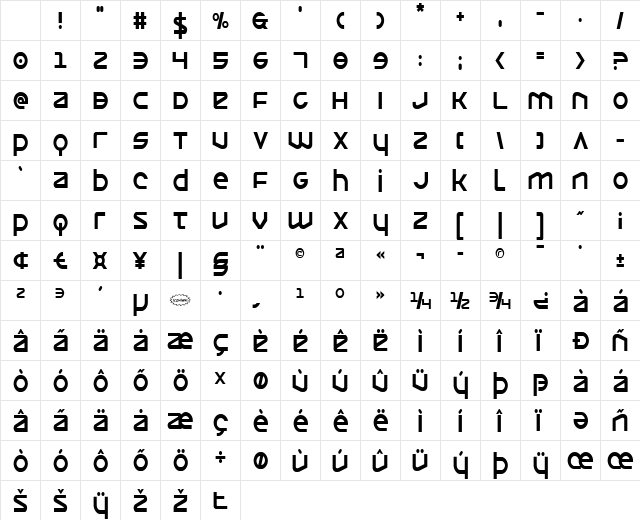
Complete Opilio Condensed glyph index. Displaying only characters natively supported by Opilio Condensed font.
Opilio is a composed and adaptable typeface that performs quietly and consistently across a wide range of design contexts. Its narrow stance lets it pack a punch even in space-constrained designs.